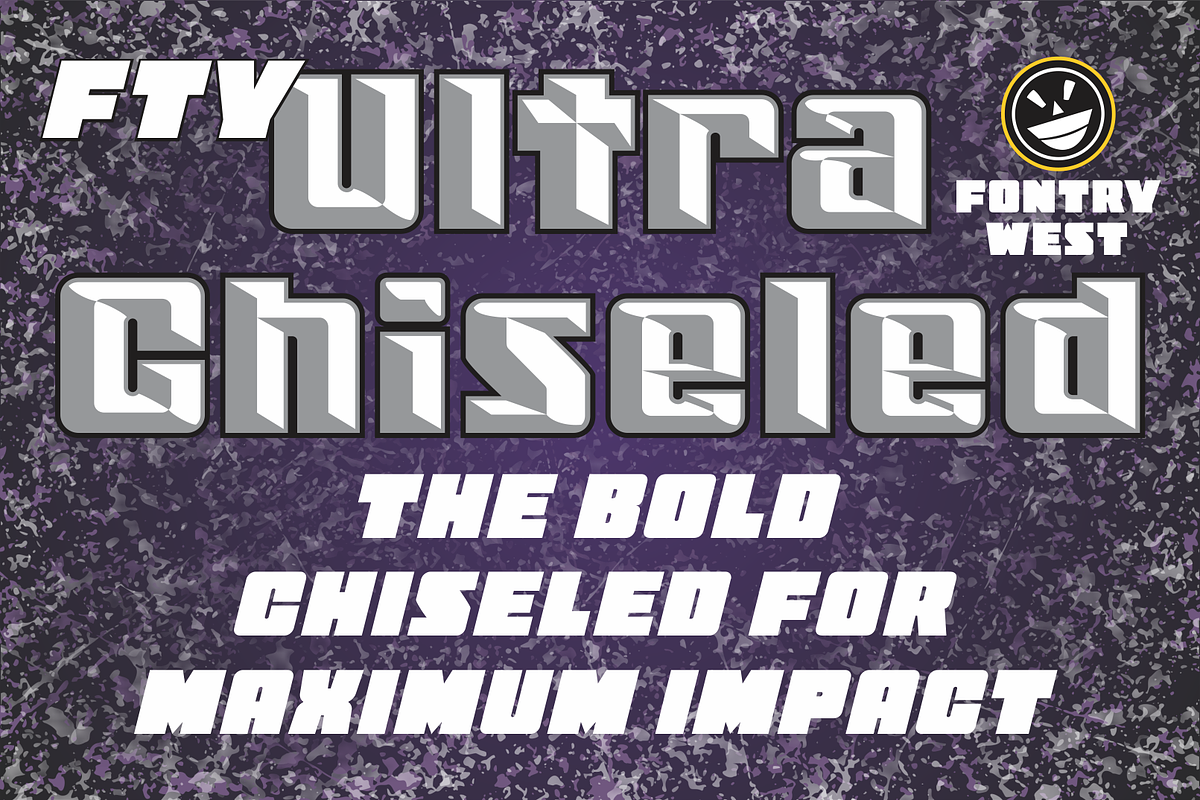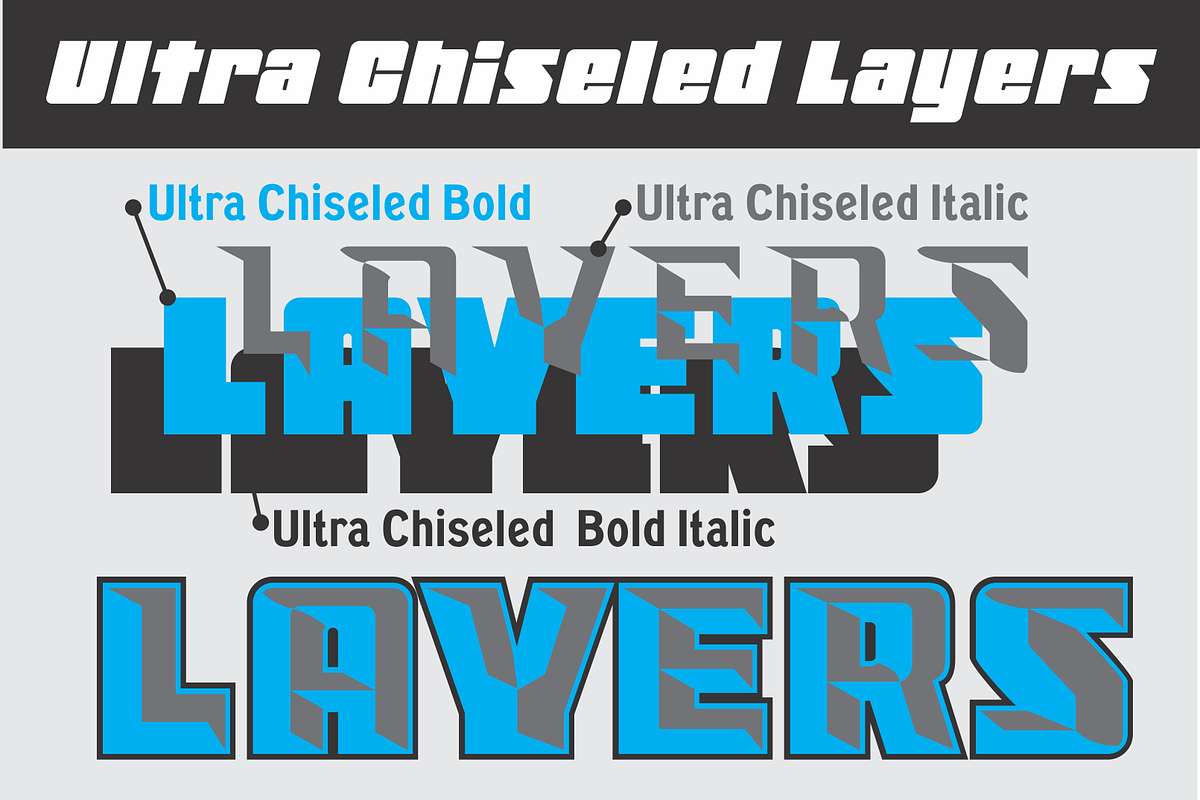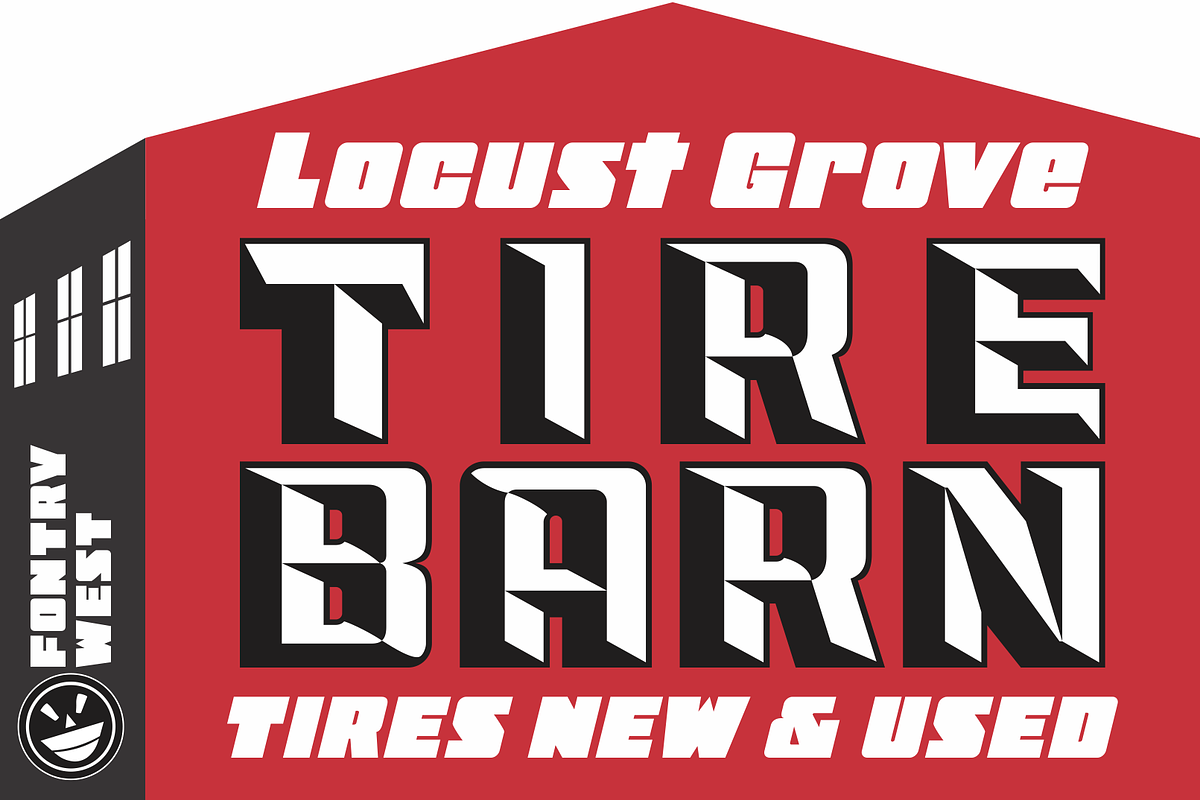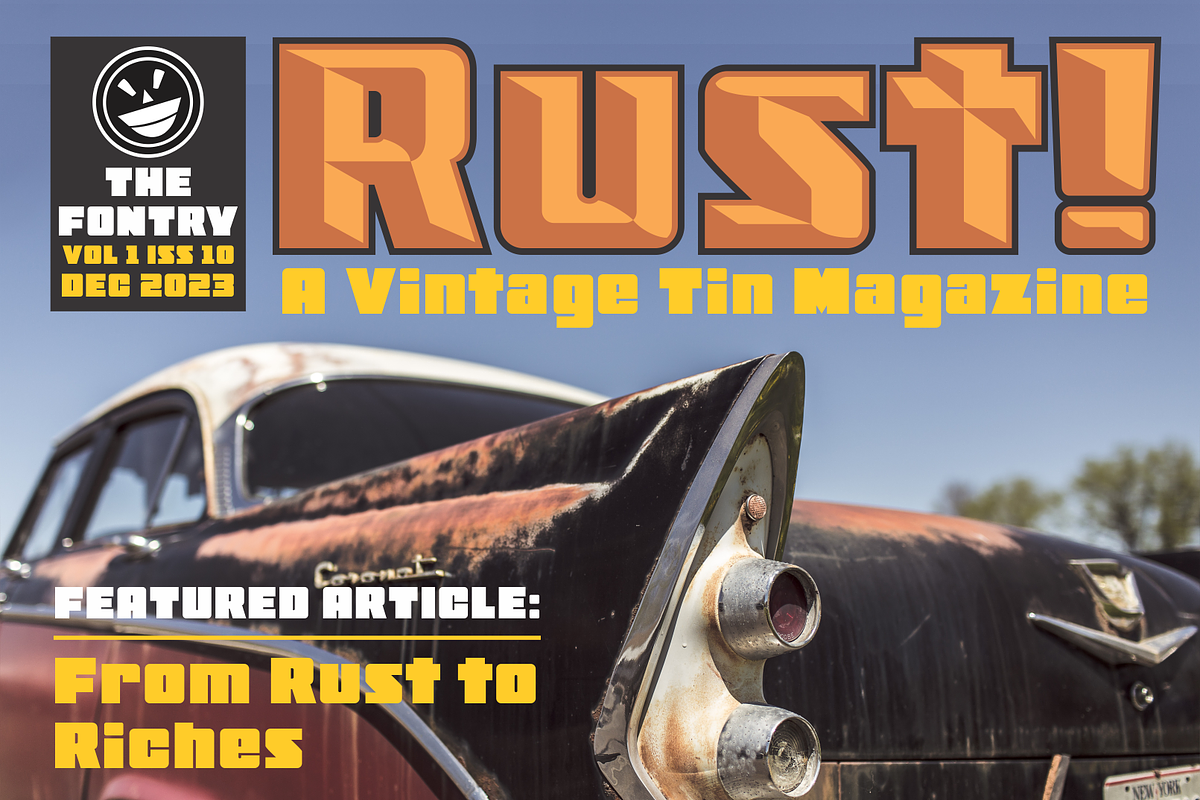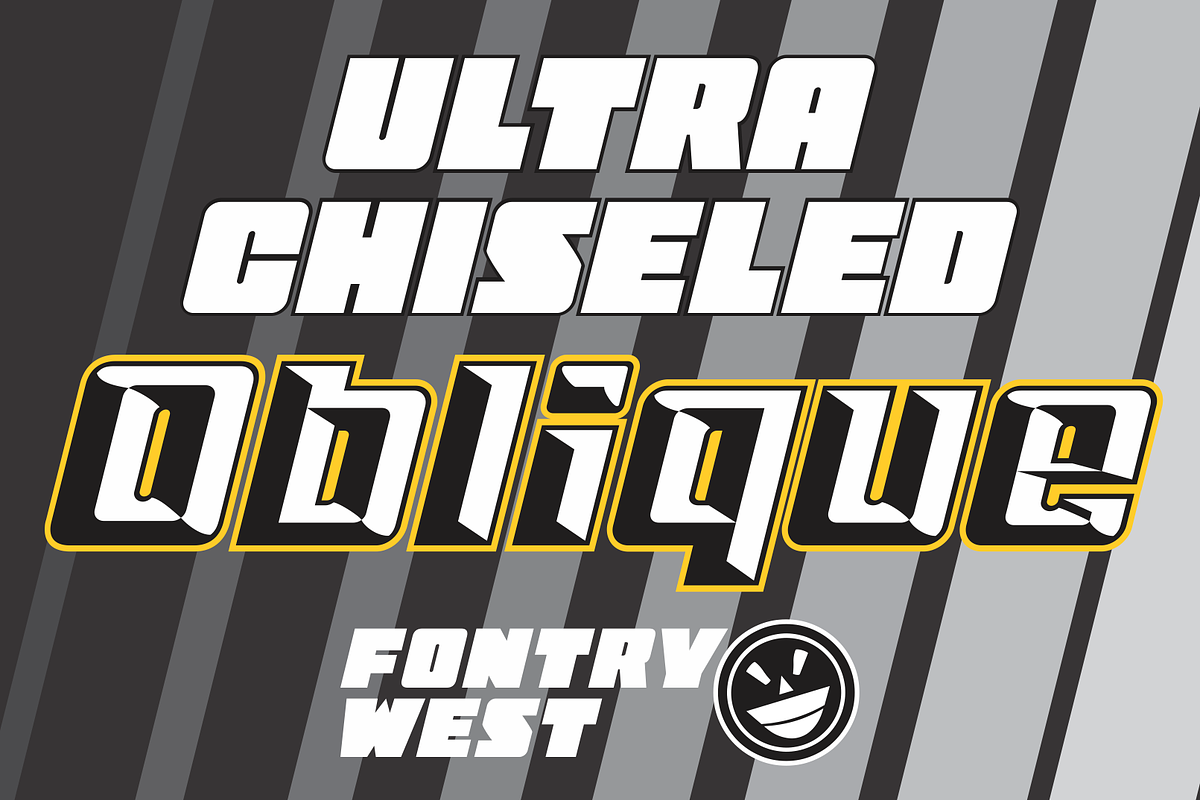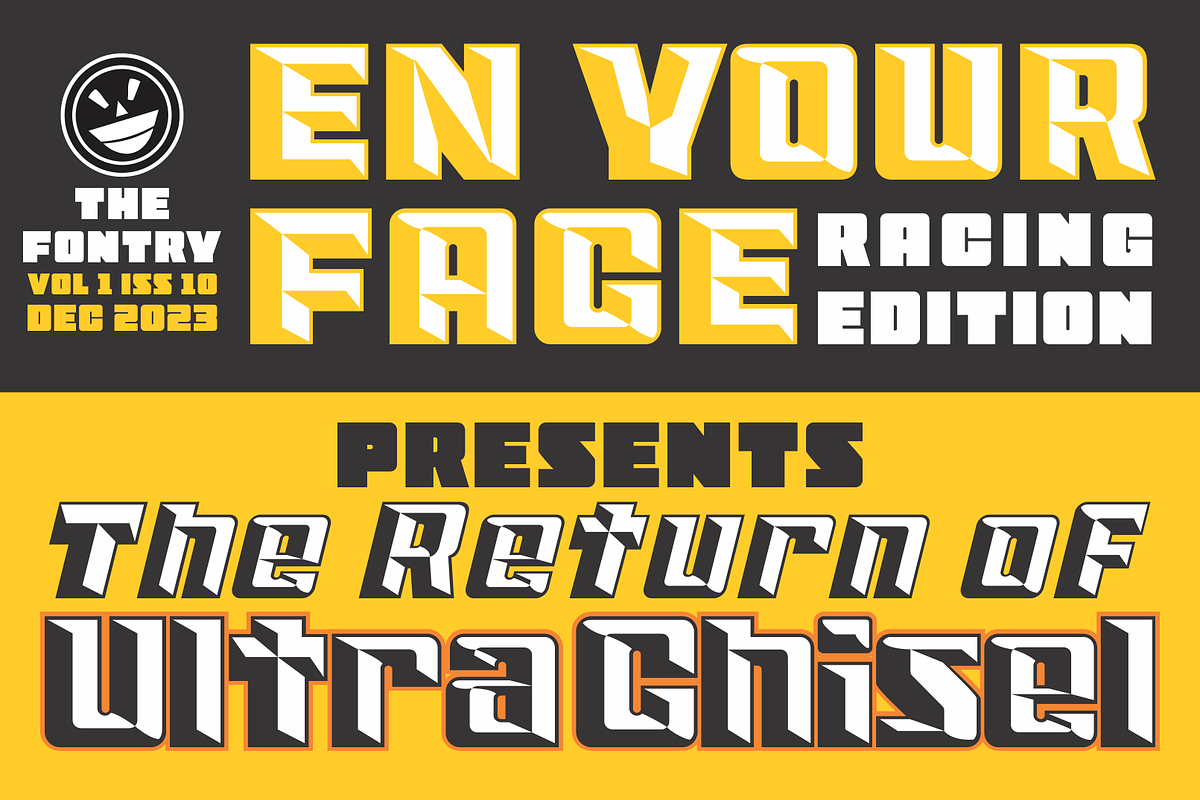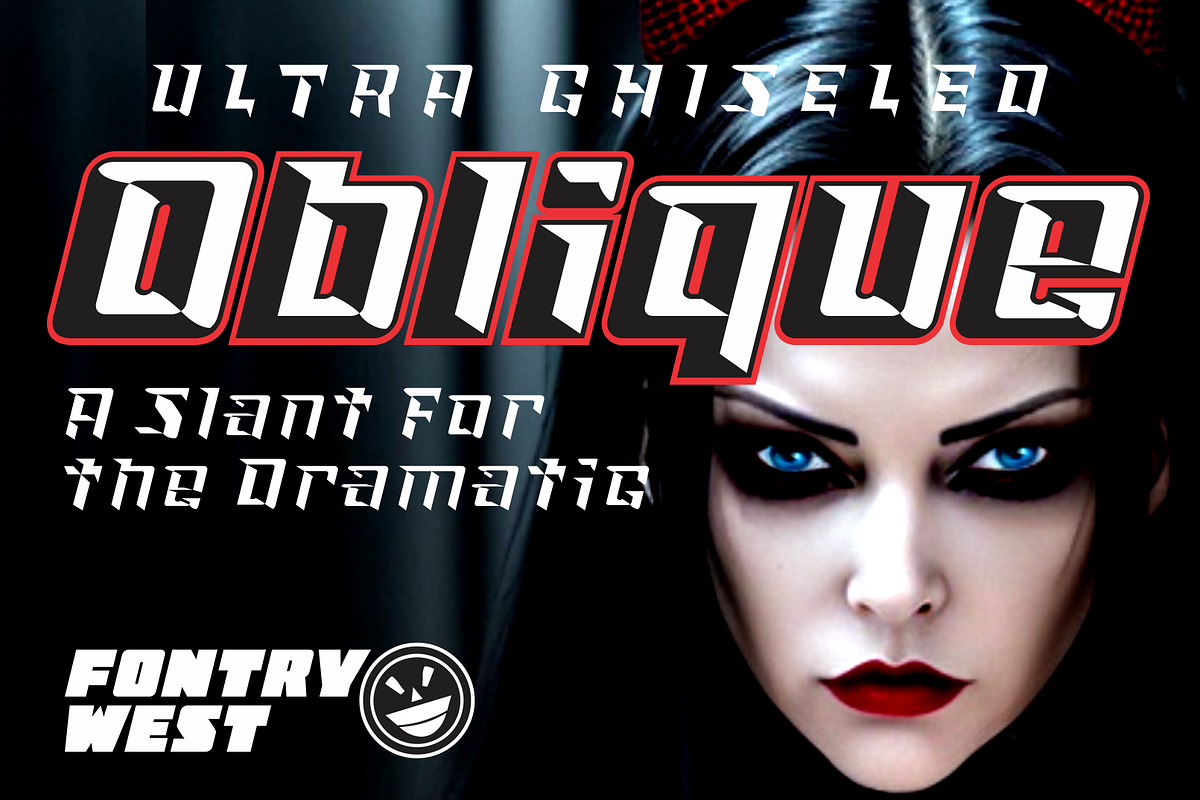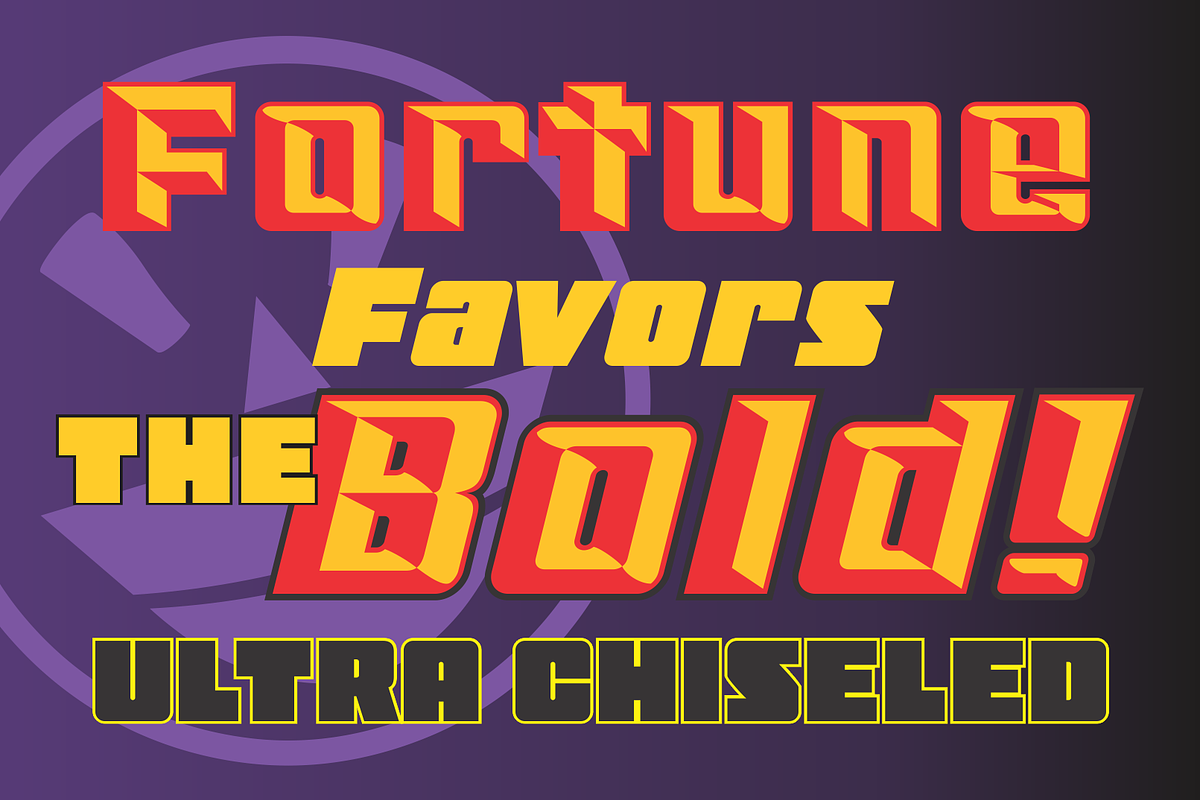
FTY Ultra Chiseled A Bold Experience
A cold night, a wild tempest, thunder bellows and lightning flashes. A tattered shadow of a man sits oblivious to the storm. The man stares at a glowing monitor, the only light in the room save the lightening. A witness, had anyone had the courage to venture into the chaos strewn domicile, would have seen the glint of insanity in the man's eyes. He watched entranced as he gave final breath to his creation. Arcane glyphs marched boldly across the screen toward certain conquest. With lines trim and forms powerful, the characters advanced into Machiavellian designs that would chisel their marks into the minds of men. The tattled man raised his fists to the heavens and warned all of creation, “It's Alive!”
Not incredibly original but it was all he could think of at that moment. With that exultation he wondered off to see if there was any coffee left.